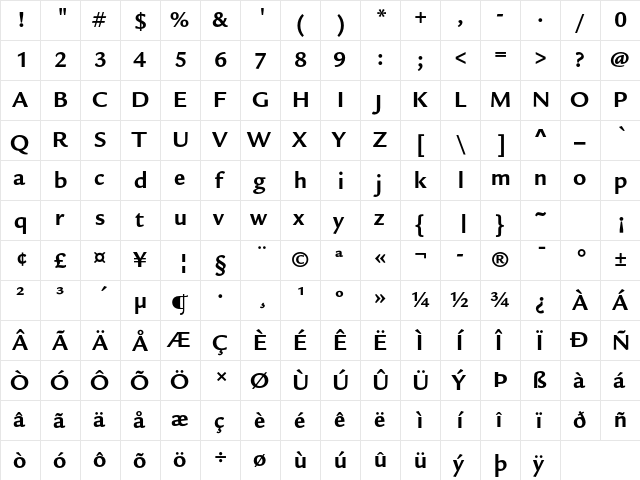
Legacy Sans ITC Std Bold
| Designer | Ronald Arnholm |
Design Context for Legacy Sans ITC Std Typeface
Legacy Sans ITC Std is a composed and adaptable typeface that performs quietly and consistently across a wide range of design contexts. The heavy weight commands attention and anchors typographic hierarchies.